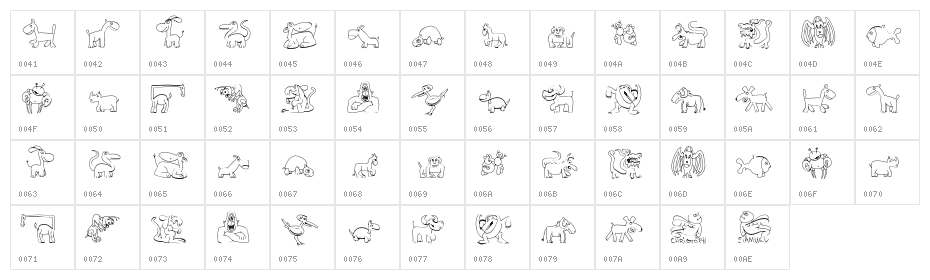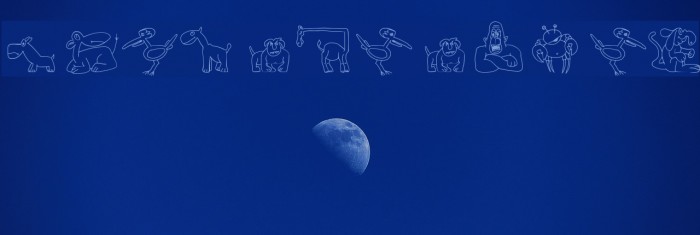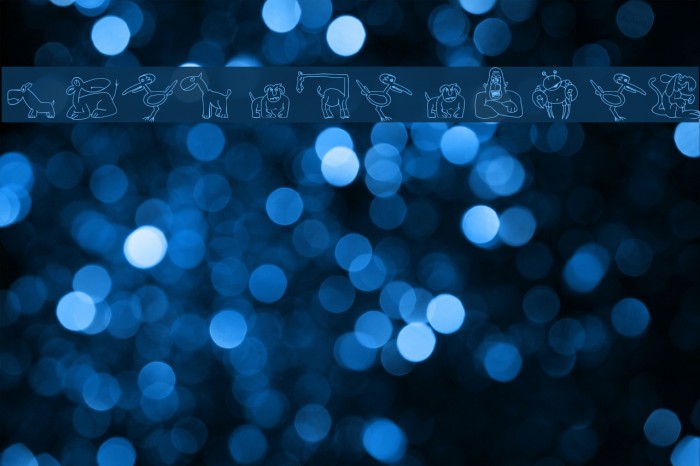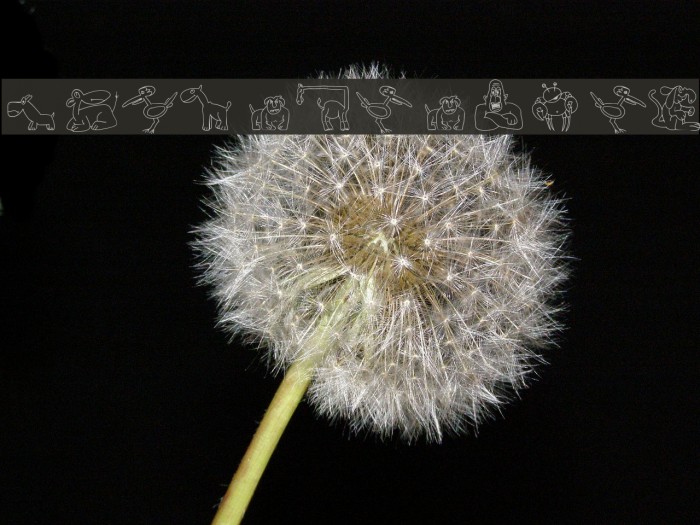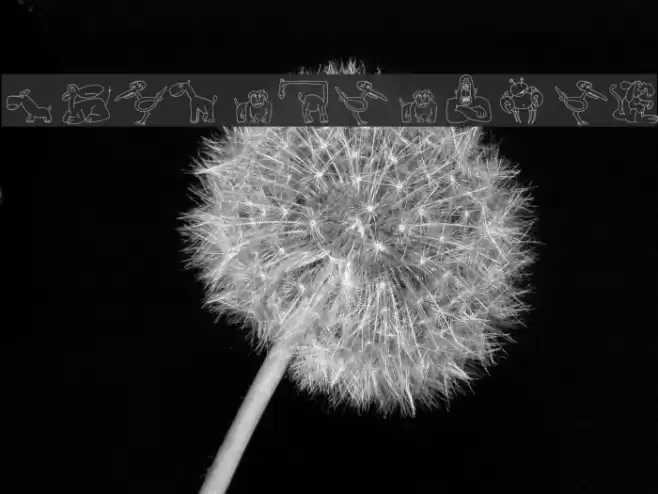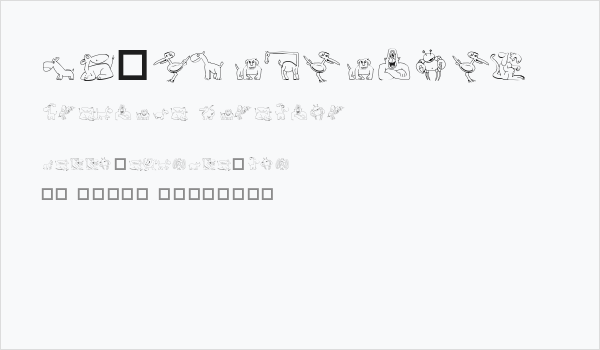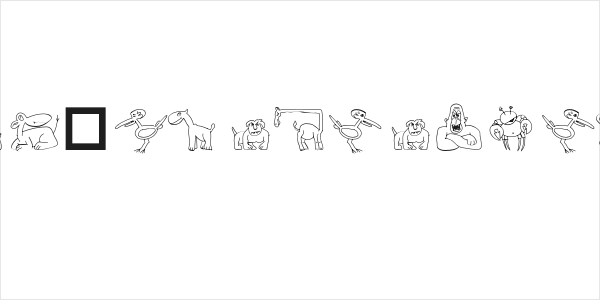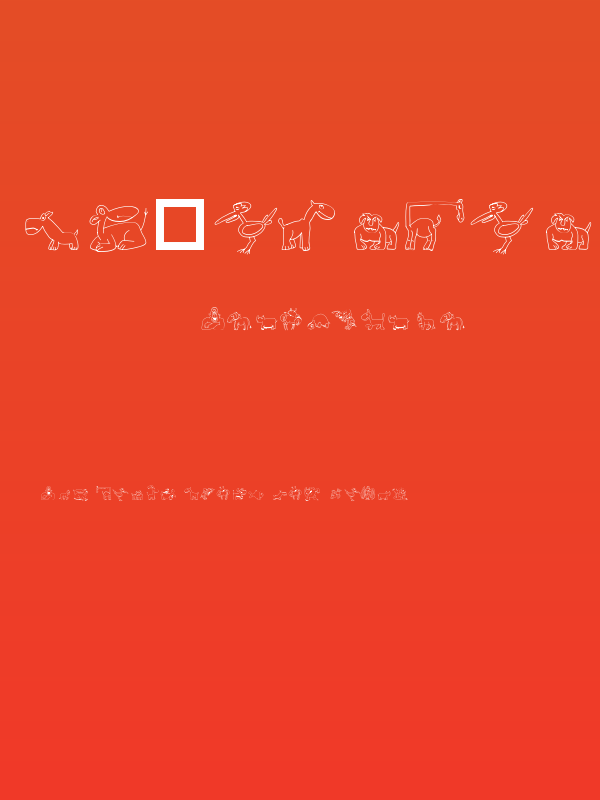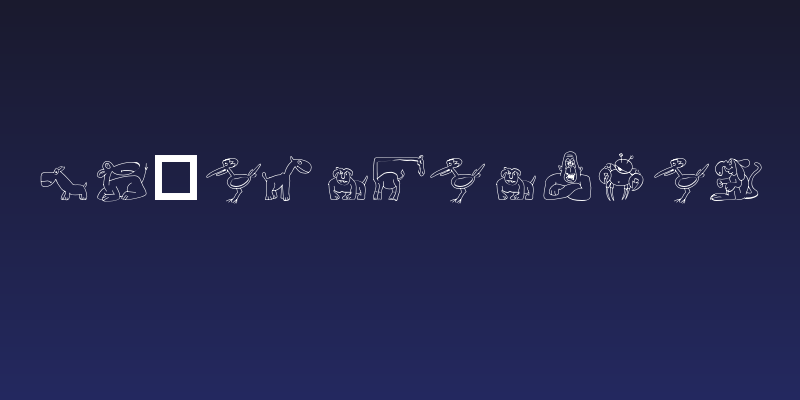
FE-Ubiquitous Font
FE-Ubiquitous Description
A whimsical, decorative font where each character is represented by a unique, hand-drawn animal illustration, giving it a playful and artistic appearance. The glyphs are outlined with thin, irregular strokes, and each letterform is creatively integrated into the animal's shape.
| Overall Style | Decorative, Playful, Artistic |
| Use Case | Logos, Headlines, Posters, ChildrenΓ’β¬β’s content |
| Proposed Projects | ChildrenΓ’β¬β’s books, educational materials, playful branding, greeting cards, posters, and creative projects. |